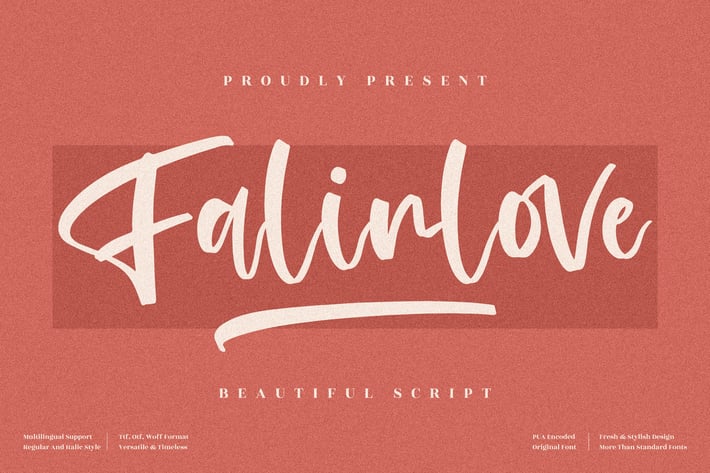
Falinlove Handwritten Font
Falinlove is a beautiful handwritten font that radiates warmth, emotion, and authenticity. With its natural brush strokes and smooth flow, this script typeface adds a personal and romantic touch to any design. Perfect for heartfelt branding, quotes, invitations, and creative projects, Falinlove captures the charm of genuine handwriting with a modern twist.
+ Handwritten script style
+ Regular & Italic versions
+ Uppercase & lowercase letters
+ Numbers, punctuation & symbols
+ Multilingual support
+ Branding & logo design
+ Wedding invitations
+ Greeting cards
+ Quotes & social media posts
+ Packaging design
+ Lifestyle & fashion projects
Express warmth and sincerity in every word with Falinlove — a handwritten font that blends romance, personality, and modern elegance.